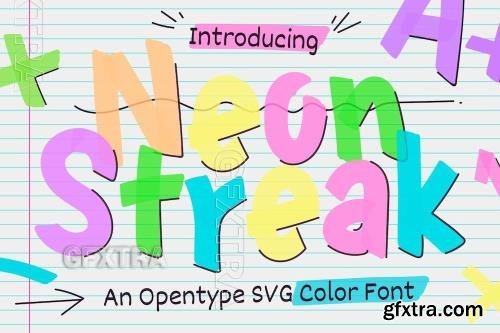
Neon Streak font
Neon Streak is a vibrant, retro-inspired typeface that glows like a neon sign scribbled in motion. Its sleek, handwritten letterforms resemble quick notes infused with electric energy, perfect for capturing a nostalgic yet modern vibe. Whether for posters, signage, or bold branding, Neon Streak adds a dynamic, illuminated touch that feels both effortlessly cool and timeless